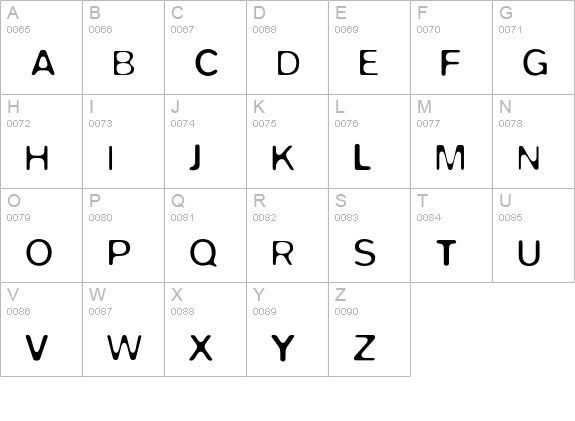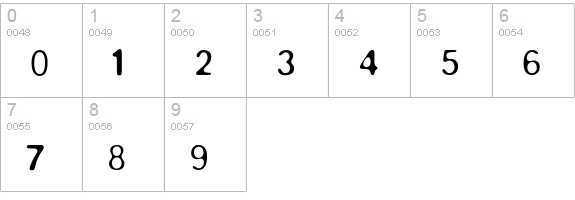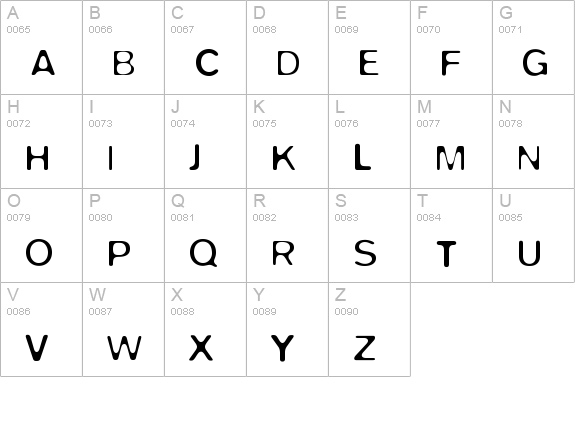
BlurLight Font Details
BlurLight font is a sleek and modern typeface that exudes a sense of sophistication and elegance. Its clean lines and subtle curves make it perfect for a wide range of design projects, from elegant invitations to professional presentations. The soft blur effect adds a touch of mystery and allure to any text, making it stand out in a subtle and unique way. One of the best things about BlurLight font is that it is completely free to download at FontsMarket.com. This means that you can easily add this stylish font to your collection without having to worry about any costs. Whether you are a designer looking to elevate your projects or a hobbyist looking to enhance your creative work, BlurLight font is a fantastic choice that won't break the bank. With its modern appeal and versatile design, BlurLight font is sure to become a favorite in your font library. Download it today at FontsMarket.com and start incorporating this stunning typeface into your designs for a touch of sophistication and style.